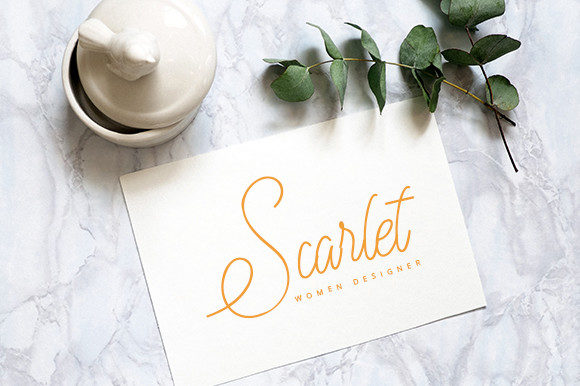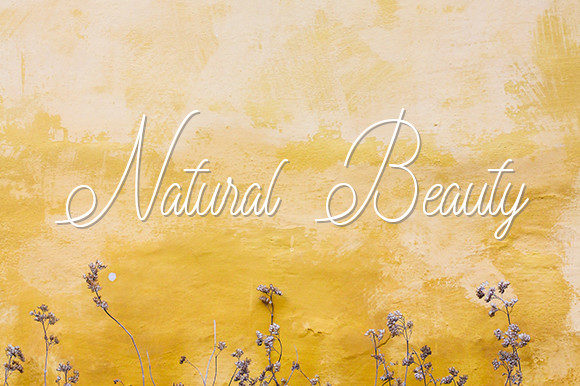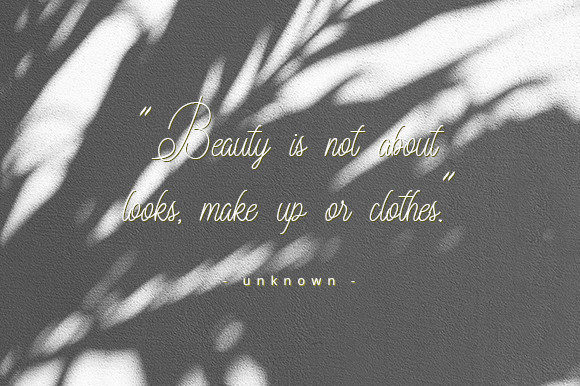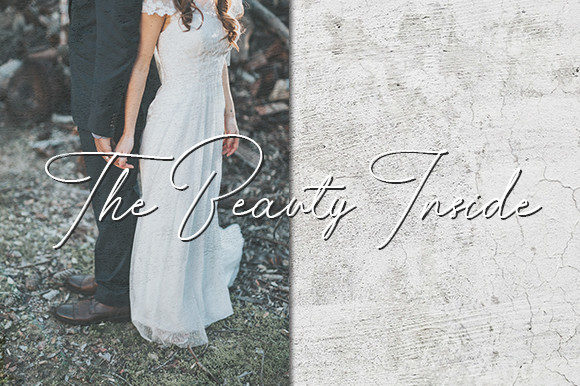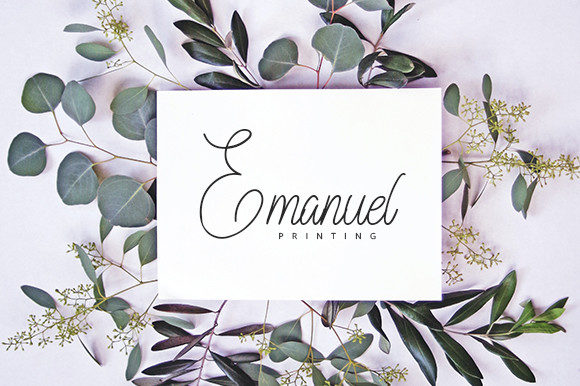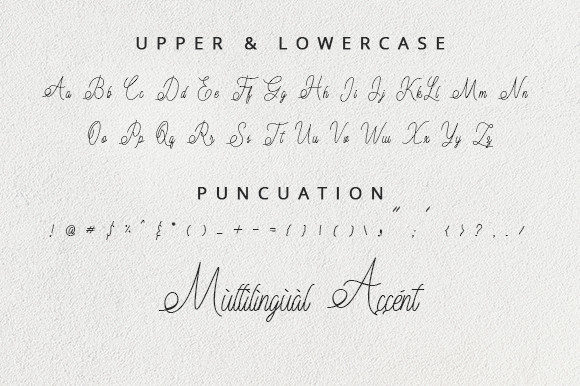
Gerry Style Font: The Perfect Choice for Elegant and Charming Designs
Are you a designer or crafter looking for a font that exudes charm and elegance? Look no further than the Gerry Style font. This beautiful font is perfect for adding a touch of sophistication to any design, from wedding invitations to business cards. In this article, we’ll take a closer look at the Gerry Style font and explore its many uses.
What is Gerry Style Font?
Gerry Style font is a modern calligraphy font that features elegant and flowing lines. It is designed to give your text a personalized and customized look, making it perfect for special occasions and events. The font is highly versatile and can be used for a wide range of design projects, including wedding invitations, thank you cards, quotes, greeting cards, logos, and business cards.
Why Choose Gerry Style Font?
So, why choose Gerry Style font for your design projects? Here are just a few reasons:
- Elegance and Charm: Gerry Style font feels equally charming and elegant, making it perfect for designs that require a touch of sophistication.
- Versatility: This font can be used for a wide range of design projects, from wedding invitations to business cards.
- Customized Look: Gerry Style font gives your text a personalized and customized look, making it stand out from the crowd.
- Easy to Read: Despite its elegant and flowing lines, Gerry Style font is easy to read, making it perfect for designs that require a lot of text.
Uses of Gerry Style Font
Gerry Style font is a highly versatile font that can be used for a wide range of design projects. Here are some of the most popular uses of this font:
- Wedding Invitations: Gerry Style font is perfect for wedding invitations, adding a touch of elegance and sophistication to your special day.
- Thank You Cards: This font is also great for thank you cards, allowing you to express your gratitude in a stylish and elegant way.
- Quotes: Gerry Style font is perfect for quotes, adding a touch of elegance and sophistication to your inspirational words.
- Greeting Cards: This font can be used for a wide range of greeting cards, from birthday cards to Christmas cards.
- Logos: Gerry Style font can be used to create elegant and sophisticated logos for your business or brand.
- Business Cards: This font is also great for business cards, allowing you to make a stylish and elegant impression on your clients and customers.
Tips for Using Gerry Style Font
Here are some tips for using Gerry Style font in your design projects:
- Use it Sparingly: While Gerry Style font is elegant and charming, it can be overwhelming if used too much. Use it sparingly to add a touch of sophistication to your design.
- Pair it with Other Fonts: Gerry Style font can be paired with other fonts to create a unique and stylish look. Experiment with different font combinations to find the one that works best for your design.
- Adjust the Size and Color: Adjust the size and color of Gerry Style font to suit your design needs. This font looks great in a variety of sizes and colors, so don’t be afraid to experiment.
| Font Name | Gerry Style Font |
In conclusion, Gerry Style font is a beautiful and versatile font that is perfect for adding a touch of elegance and sophistication to your design projects. Whether you’re designing wedding invitations, thank you cards, quotes, greeting cards, logos, or business cards, this font is sure to impress. With its elegant and flowing lines, customized look, and ease of use, Gerry Style font is a must-have for any designer or crafter.
So, why not give Gerry Style font a try? With its many uses and benefits, it’s sure to become a favorite in your design arsenal.